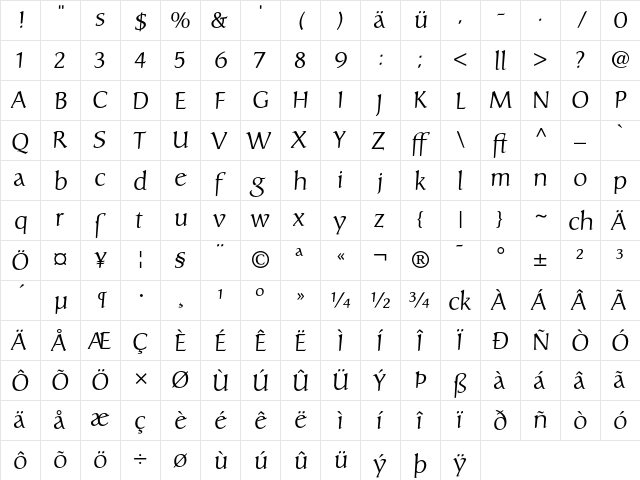
Carolina Dfr
Design Context for Carolina Typeface
Carolina is a composed and adaptable typeface that performs quietly and consistently across a wide range of design contexts.